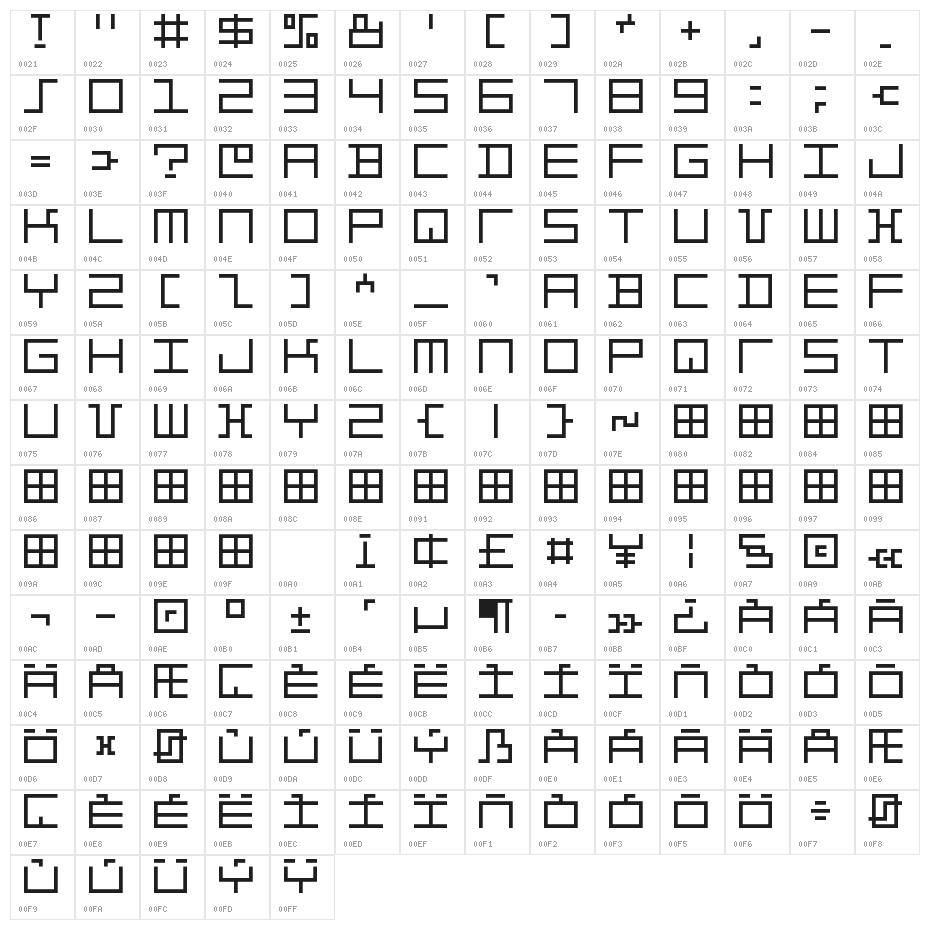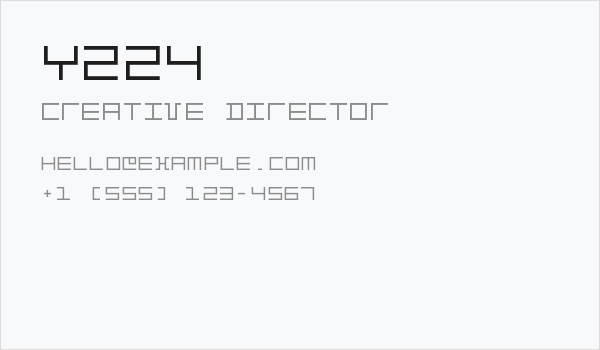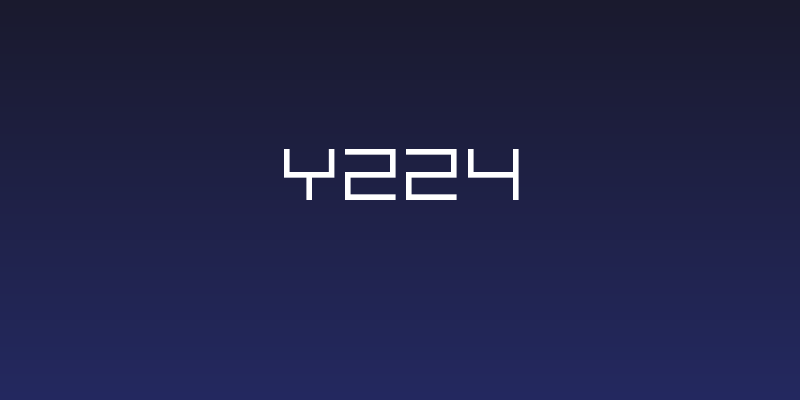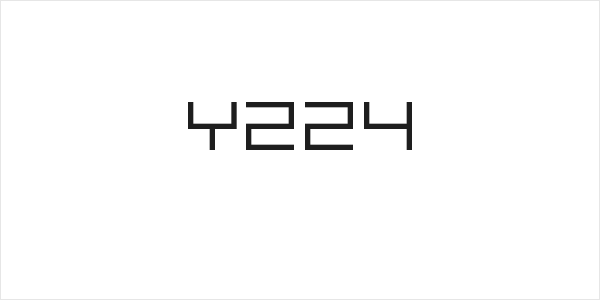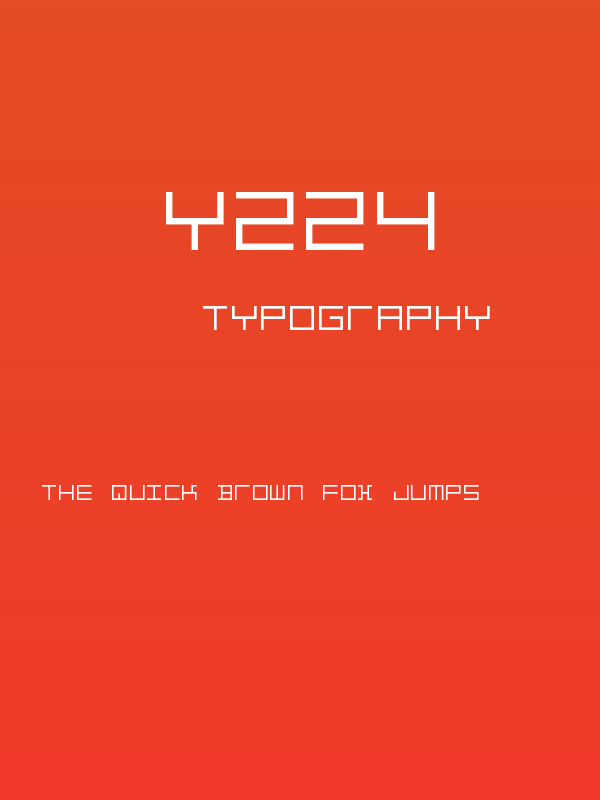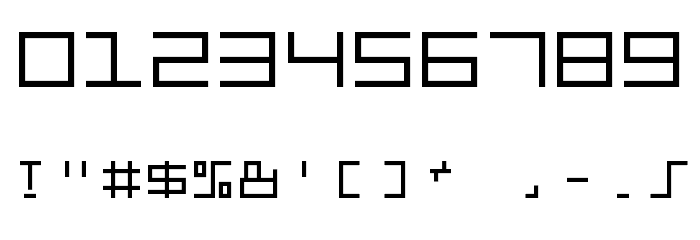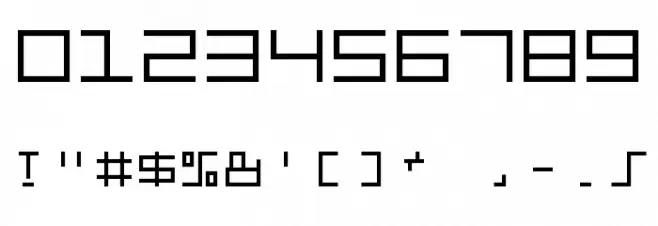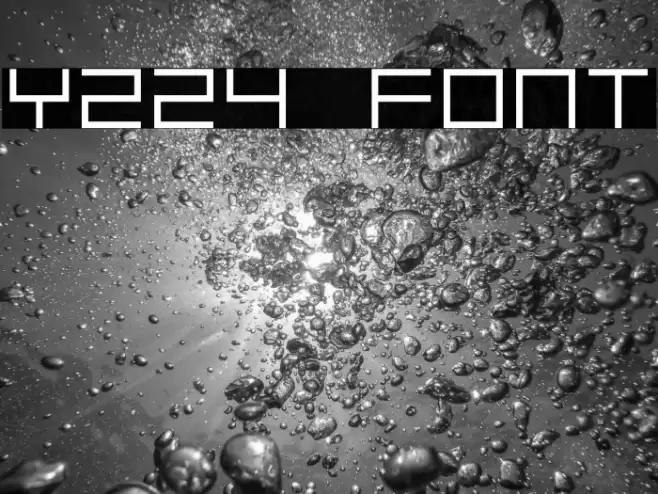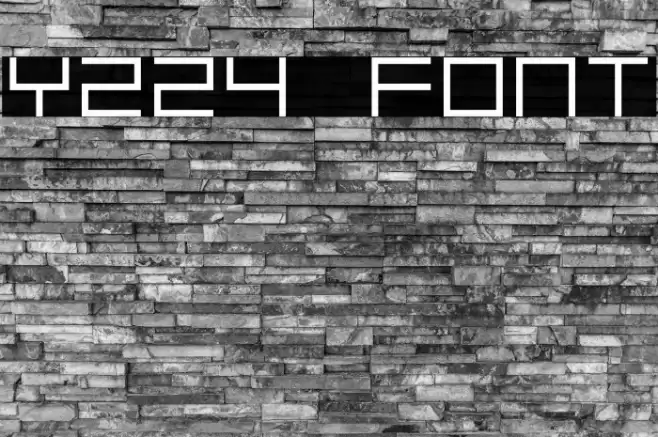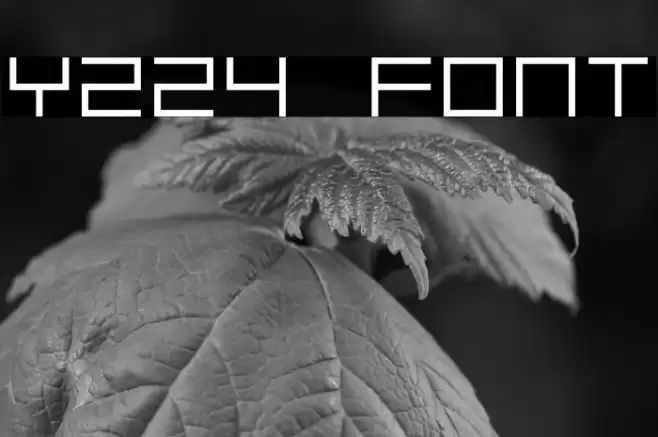
Y224 Font
Y224 Description
This font features a geometric and modern design with a distinct square and angular appearance. Each character is constructed with straight lines and sharp corners, giving it a digital or futuristic feel. The uniformity in line thickness across all characters contributes to a clean and consistent look. The uppercase and lowercase letters maintain a similar style, enhancing readability while preserving the unique aesthetic. Numbers and special characters follow the same design principles, ensuring a cohesive visual experience. The font's minimalistic and structured form makes it suitable for contemporary and tech-oriented applications.
| Use Case | Logos, Headlines, Digital interfaces |
| Proposed Projects | Ideal for tech branding, digital interfaces, video game design, and modern advertising. |